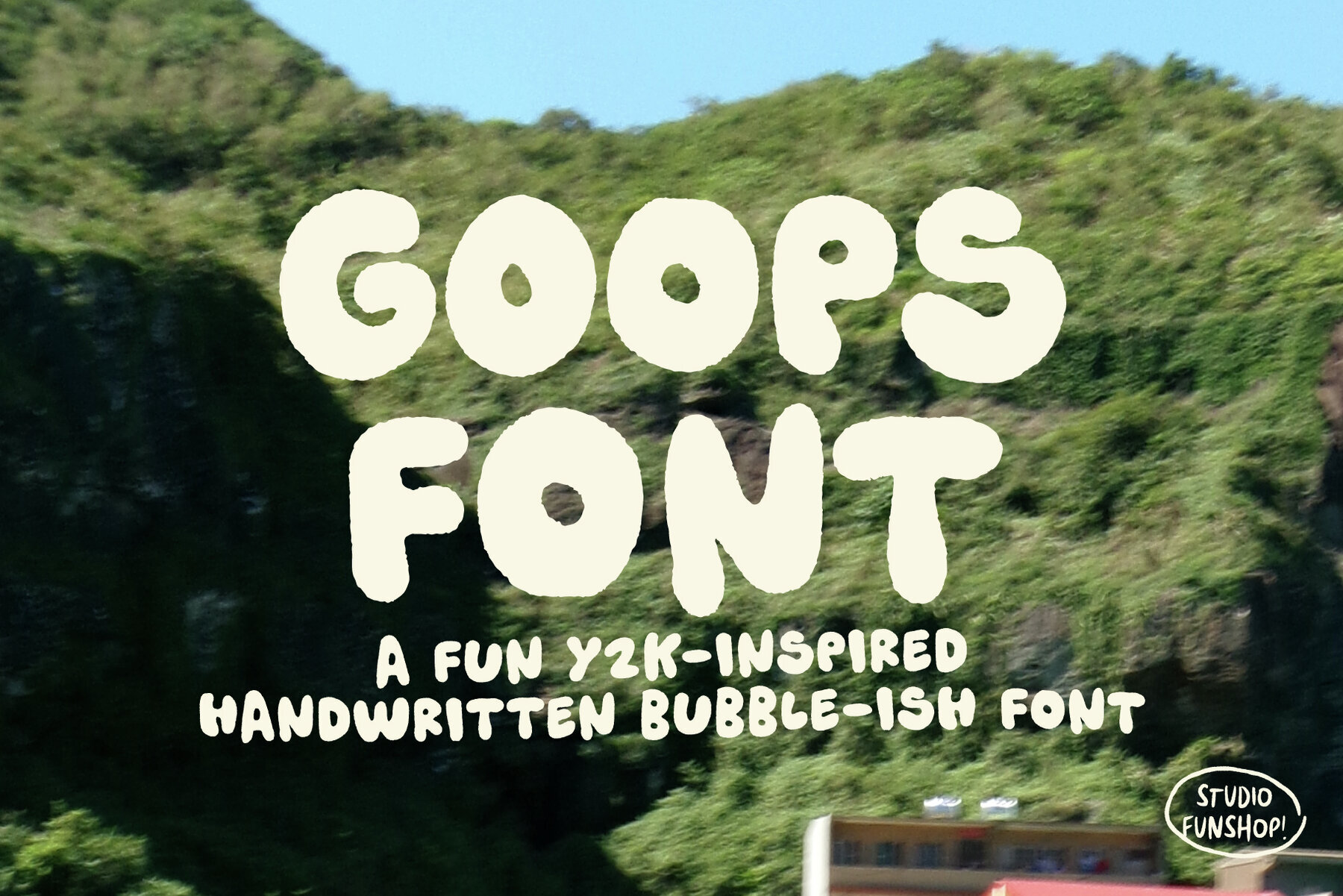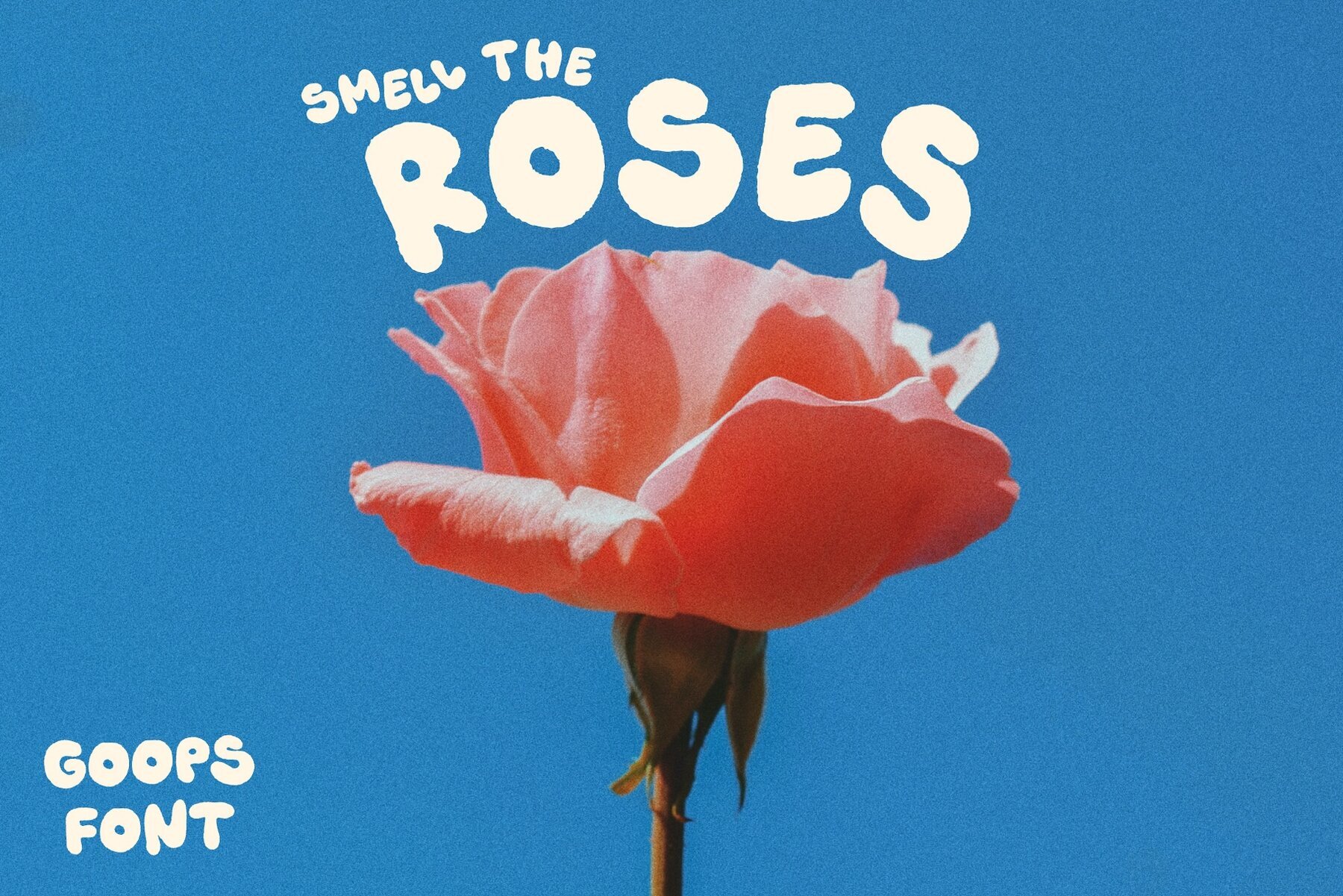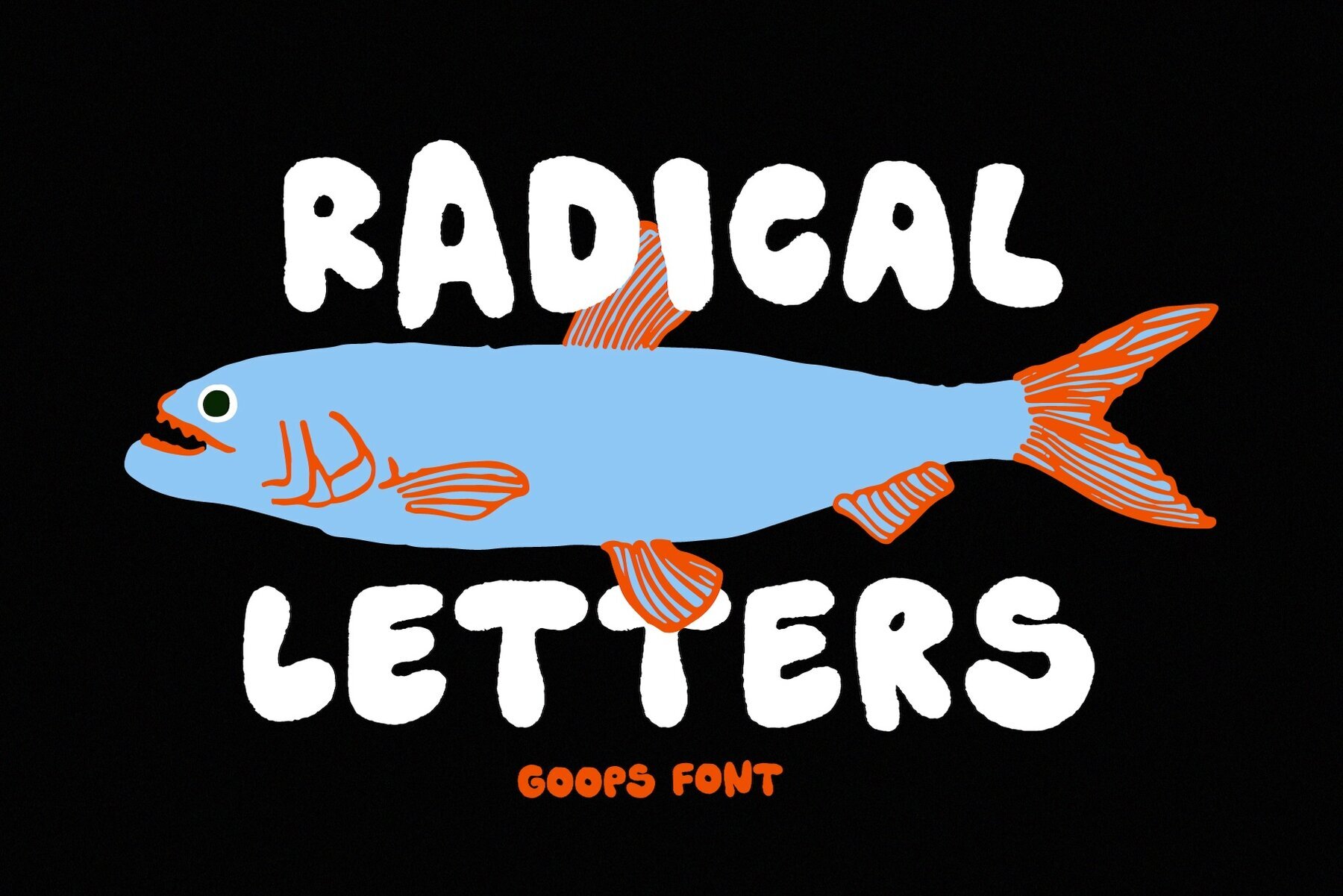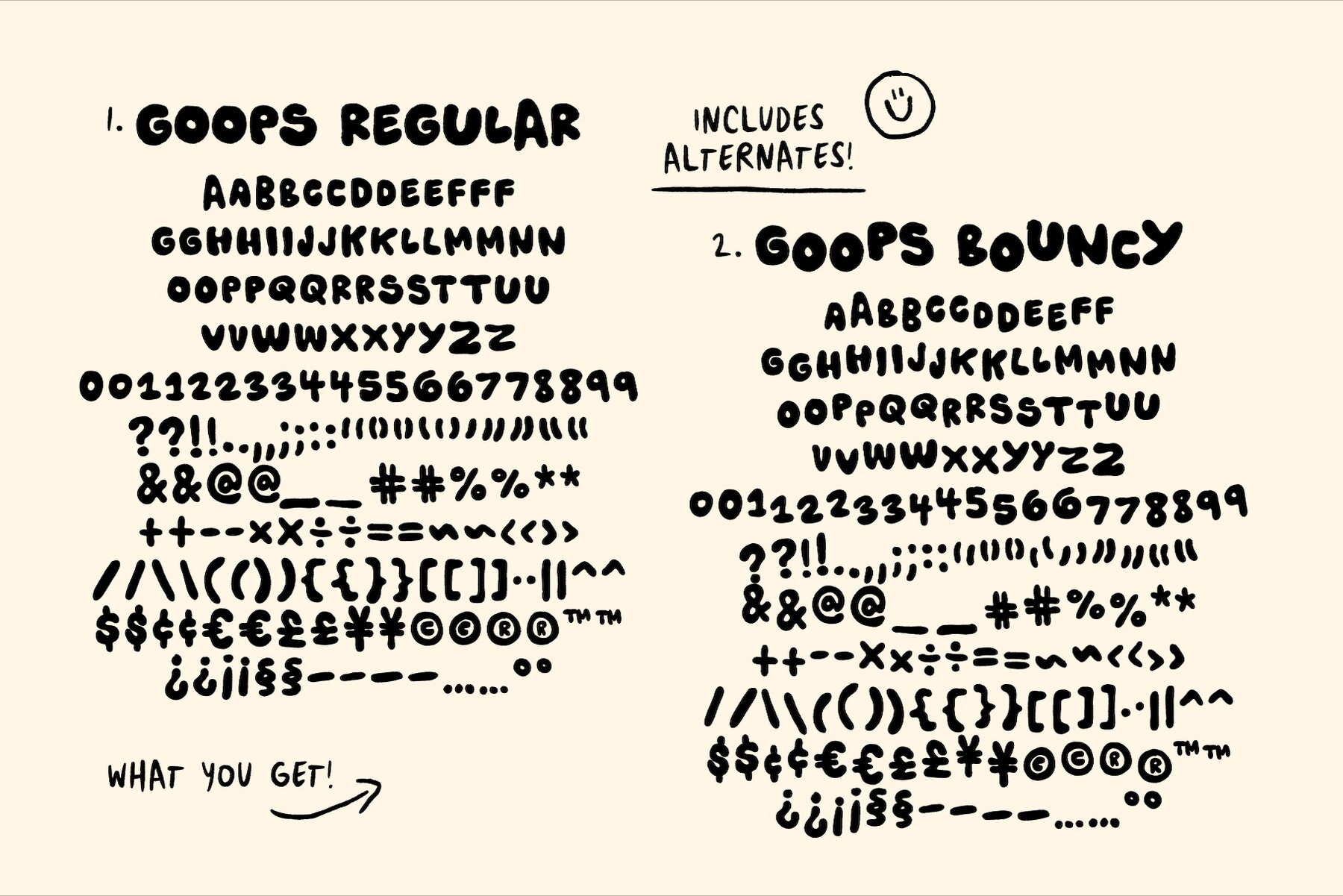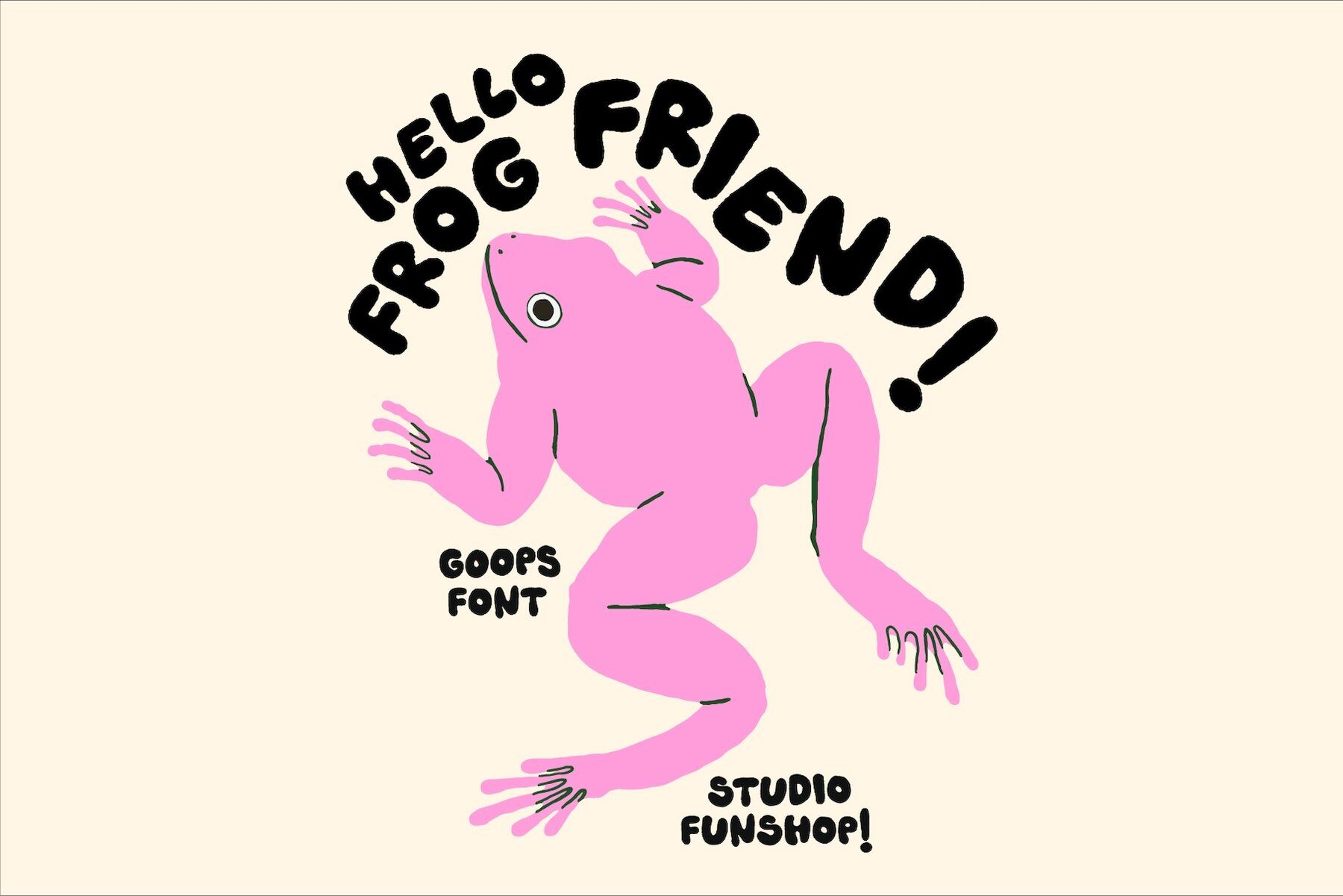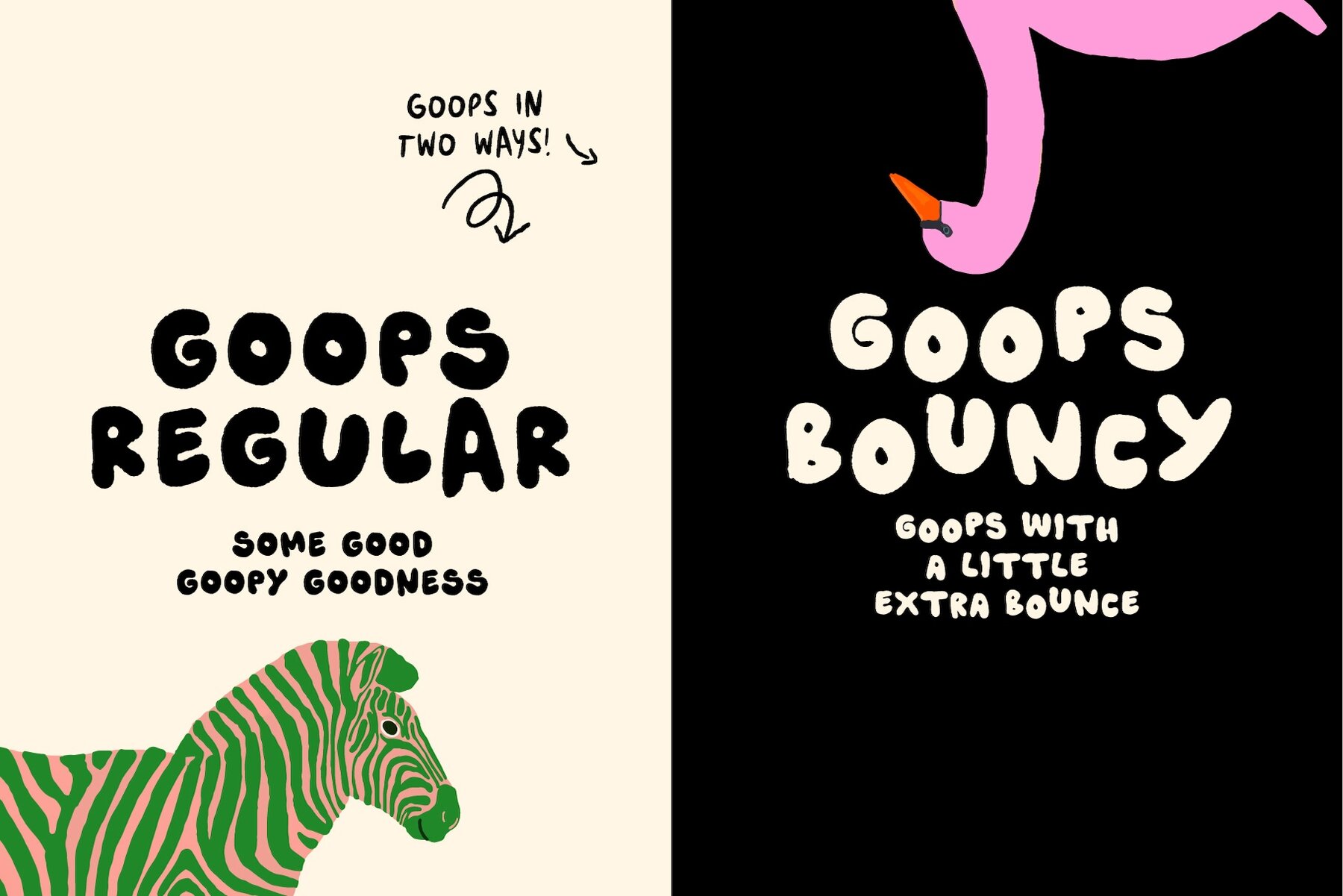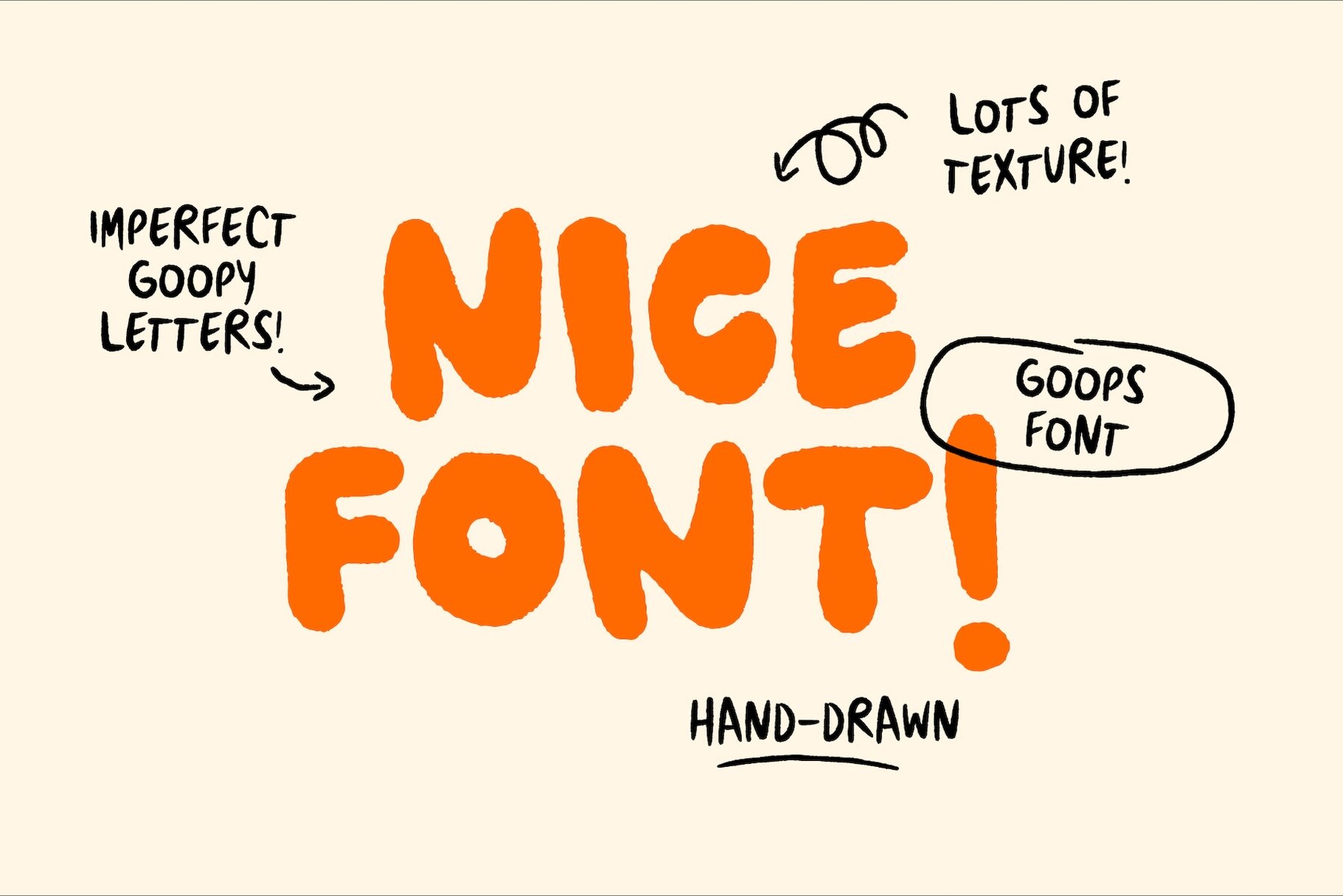
Goops Font
The Goops Font evokes the lively spirit of the Y2K era with its whimsical handwritten style. Available in regular and bouncy variations, this font is infused with texture and a unique goopy charm that brings a distinctive, imperfect appeal to your designs. Ideal for logos, quotes, art, and branding projects, Goops Font offers playful versatility across multiple design applications.Goops Font: A Playful Throwback